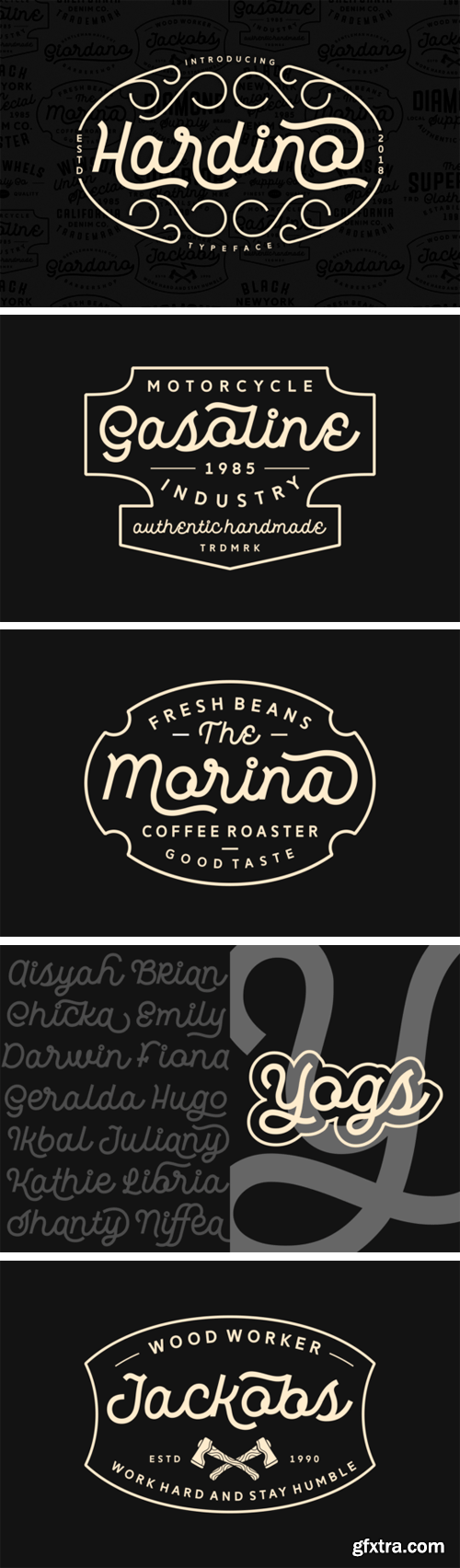
Hardino is a beautiful script font which is full of swirly alternates. Hardino will add a striking, clean look to your designs in an instant. Because Hardino is very legible, it can be used for both personal projects as well as business orientated designs.